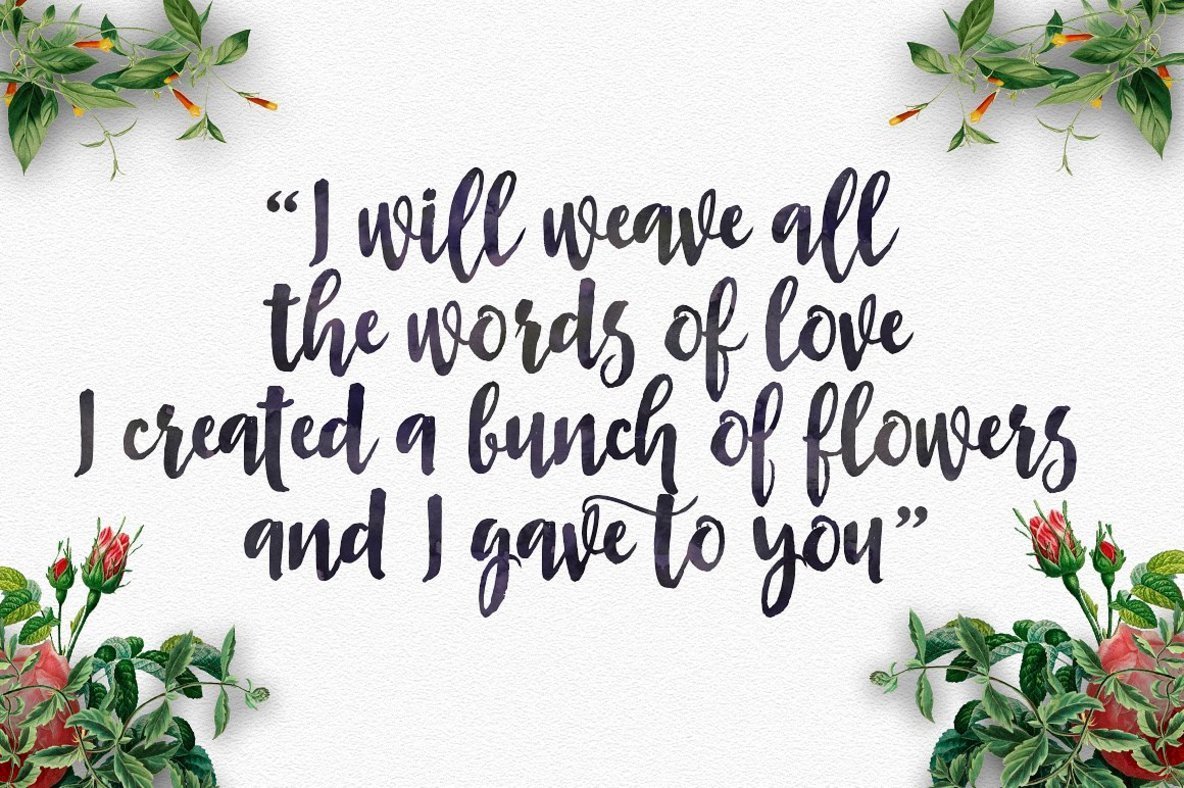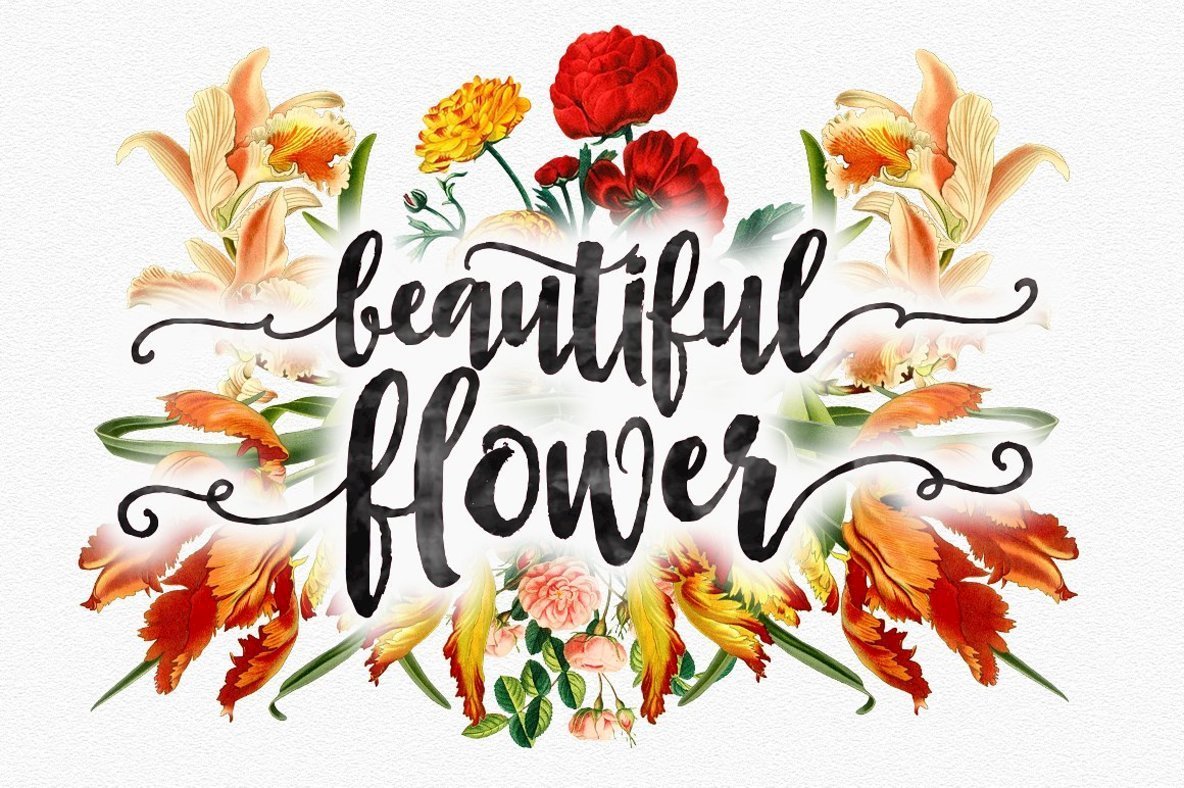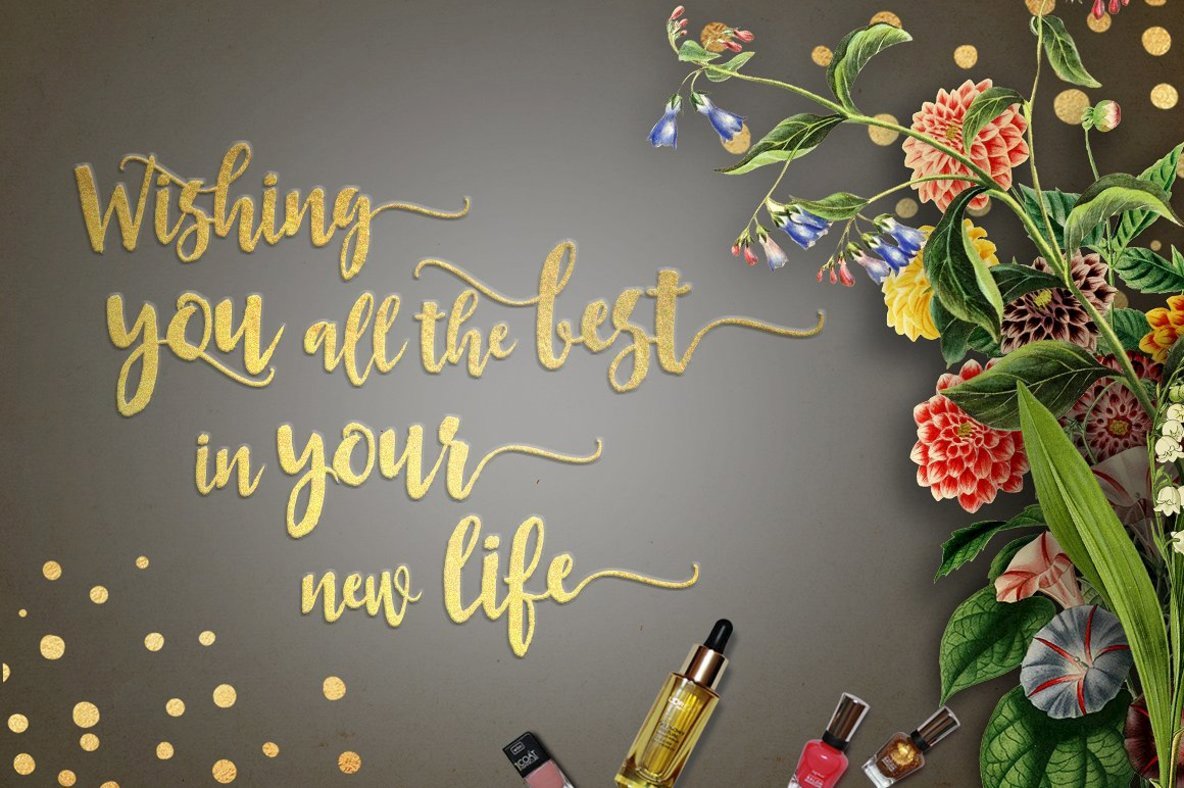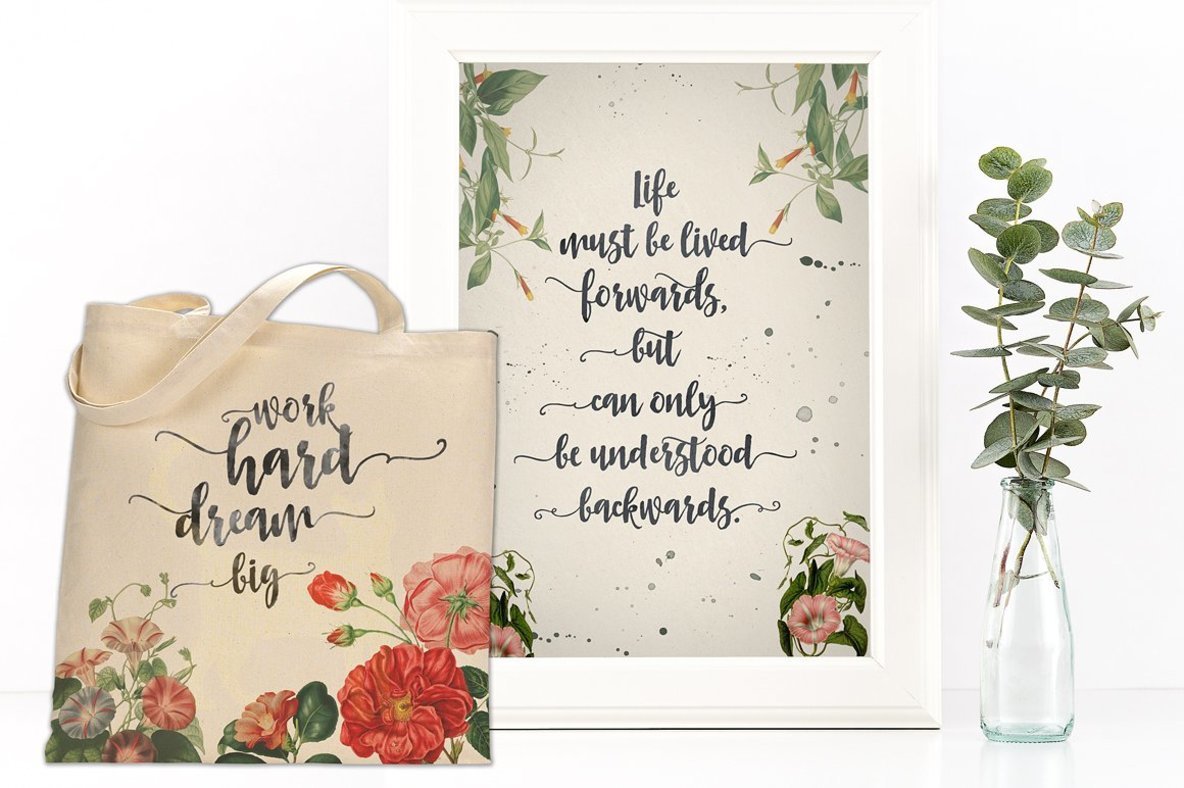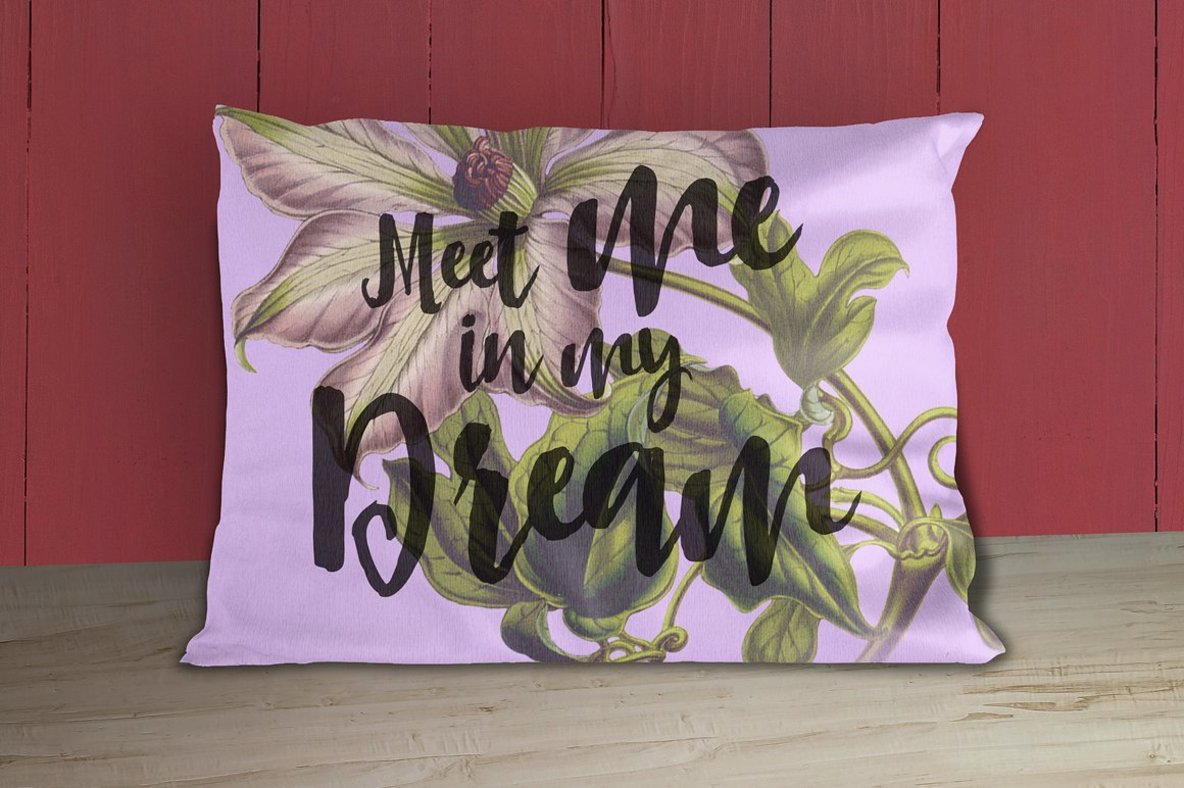
Asly Brush Font
Asly Brush
The Asly Brush font by Artisan Studio offers a distinctive calligraphy style with a grungy brush effect, ideal for adding a unique touch to your design projects. Its natural, handmade dancing style brings a fresh and personal flair to any artistic endeavor. Asly Brush is a versatile typeface suitable for various applications, including headings, logos, wedding invitations, t-shirts, letterheads, signage, labels, posters, and badges. To access the full potential of its OpenType features, utilize programs that support OpenType functions, such as Adobe Illustrator, Adobe InDesign, and CorelDraw.Asly Brush: Grungy Brush Calligraphy Style